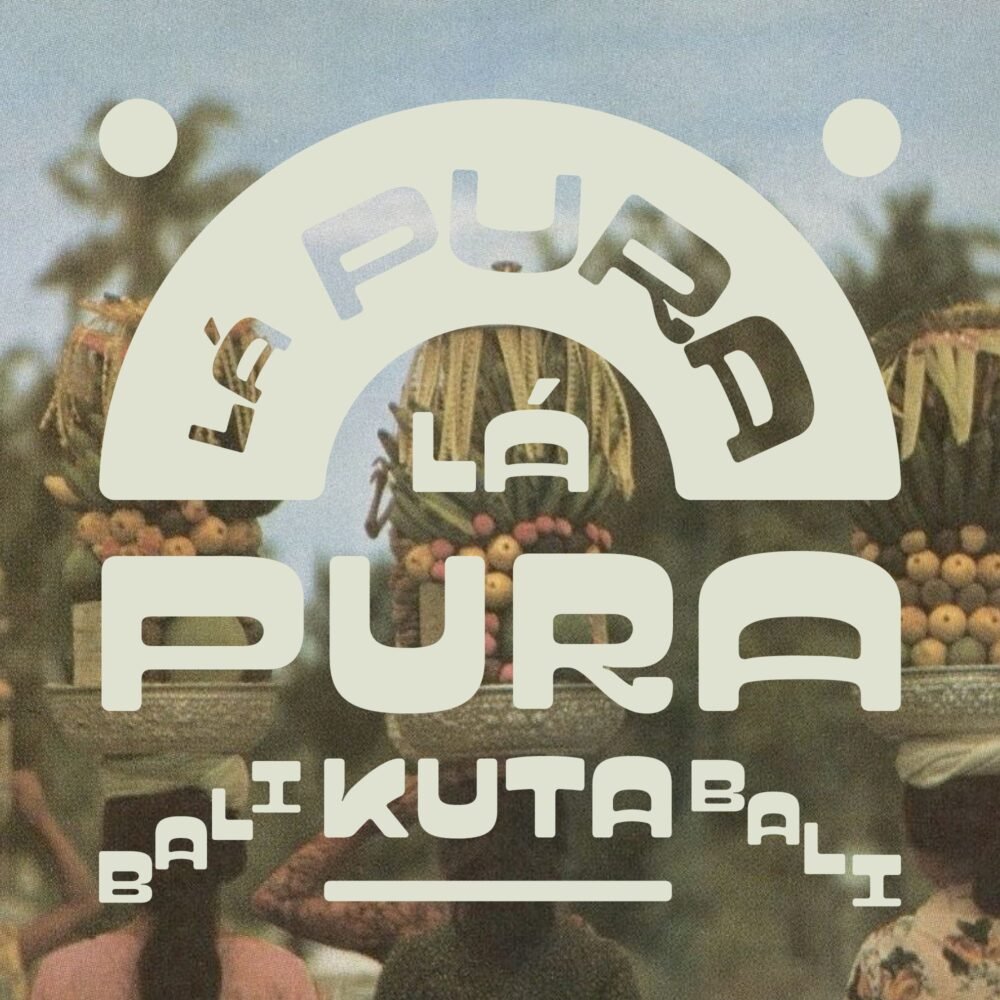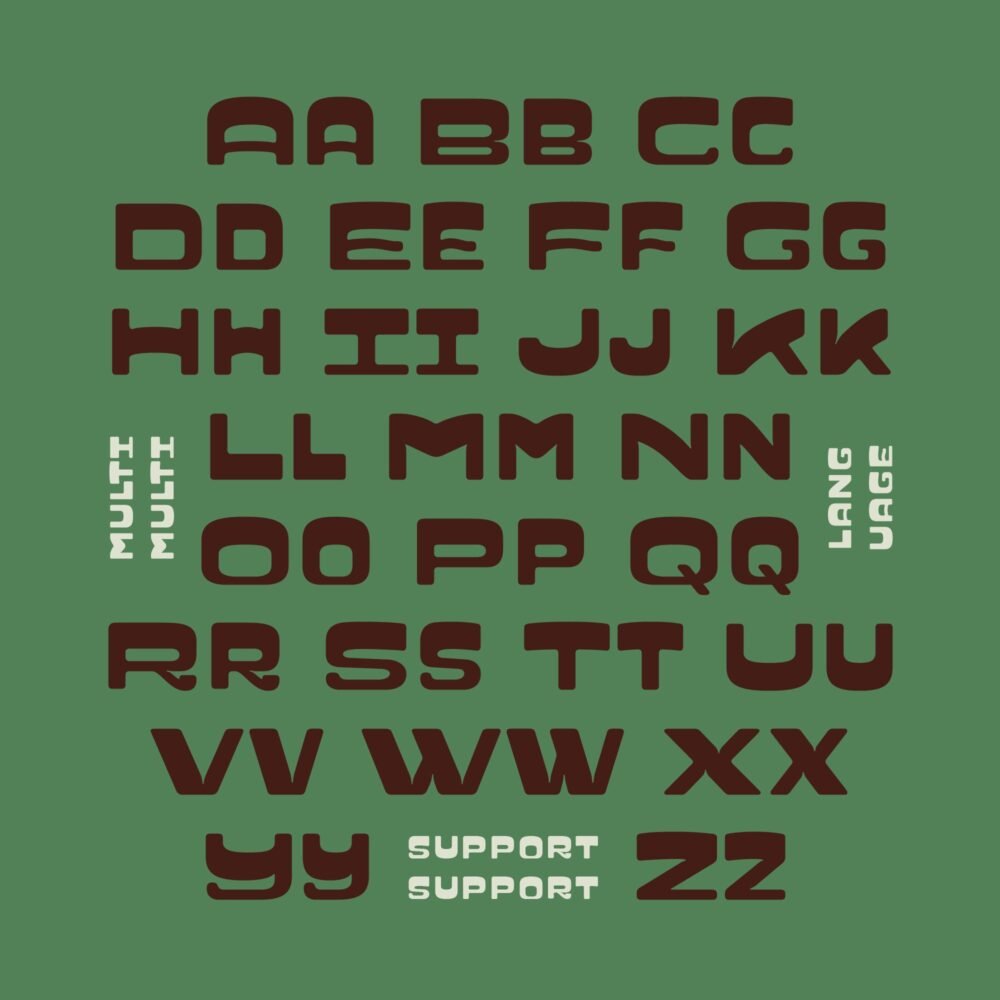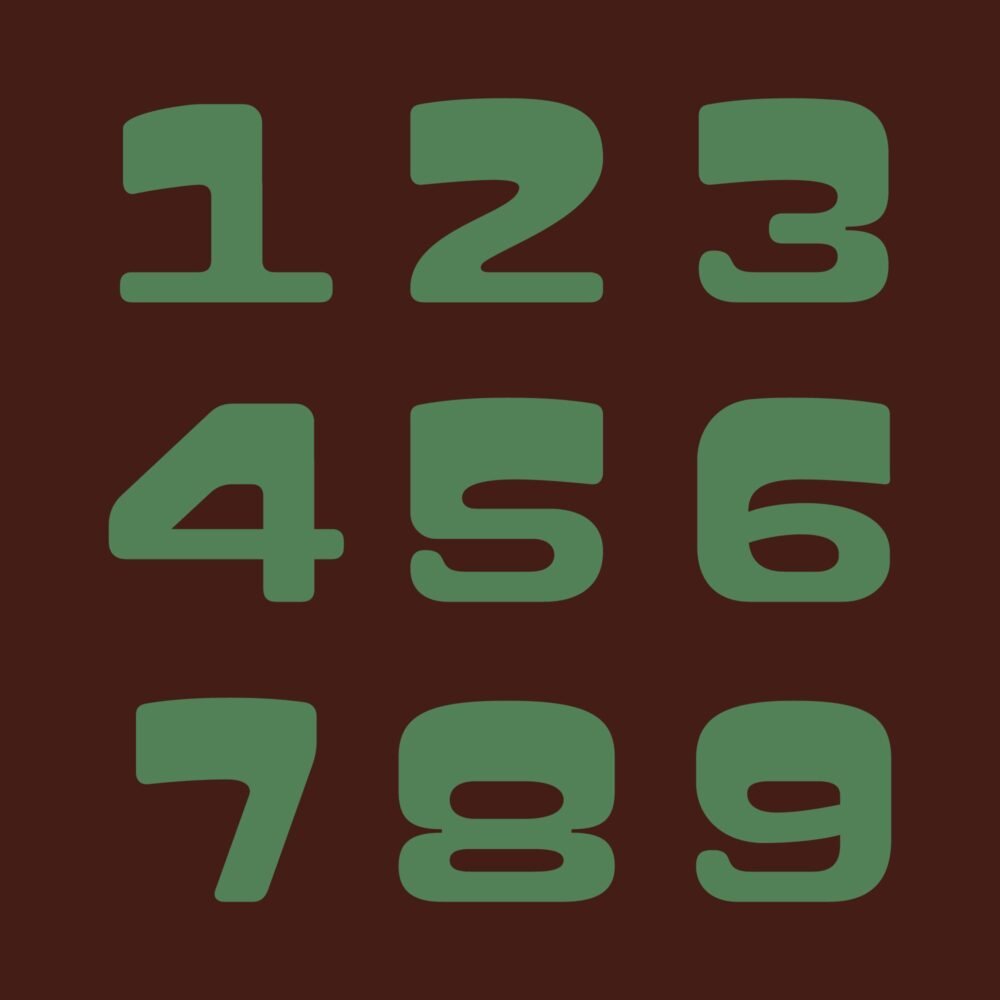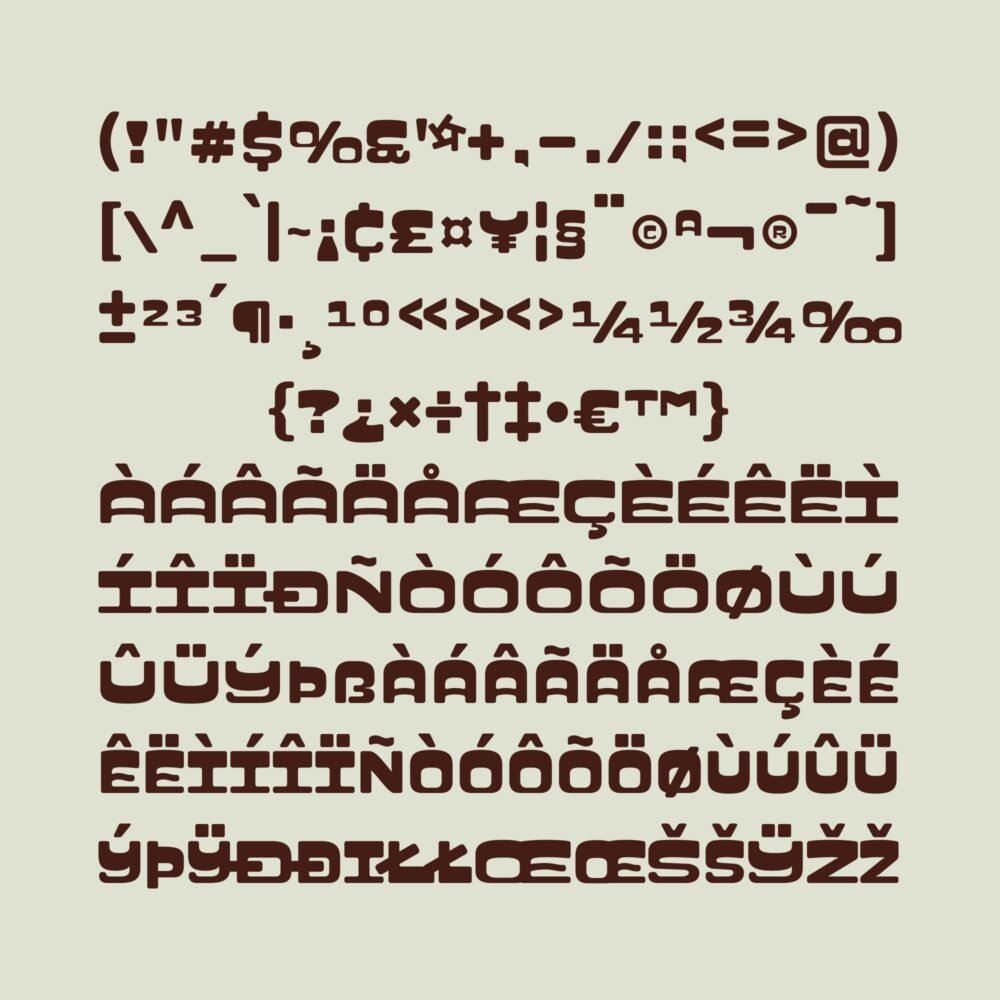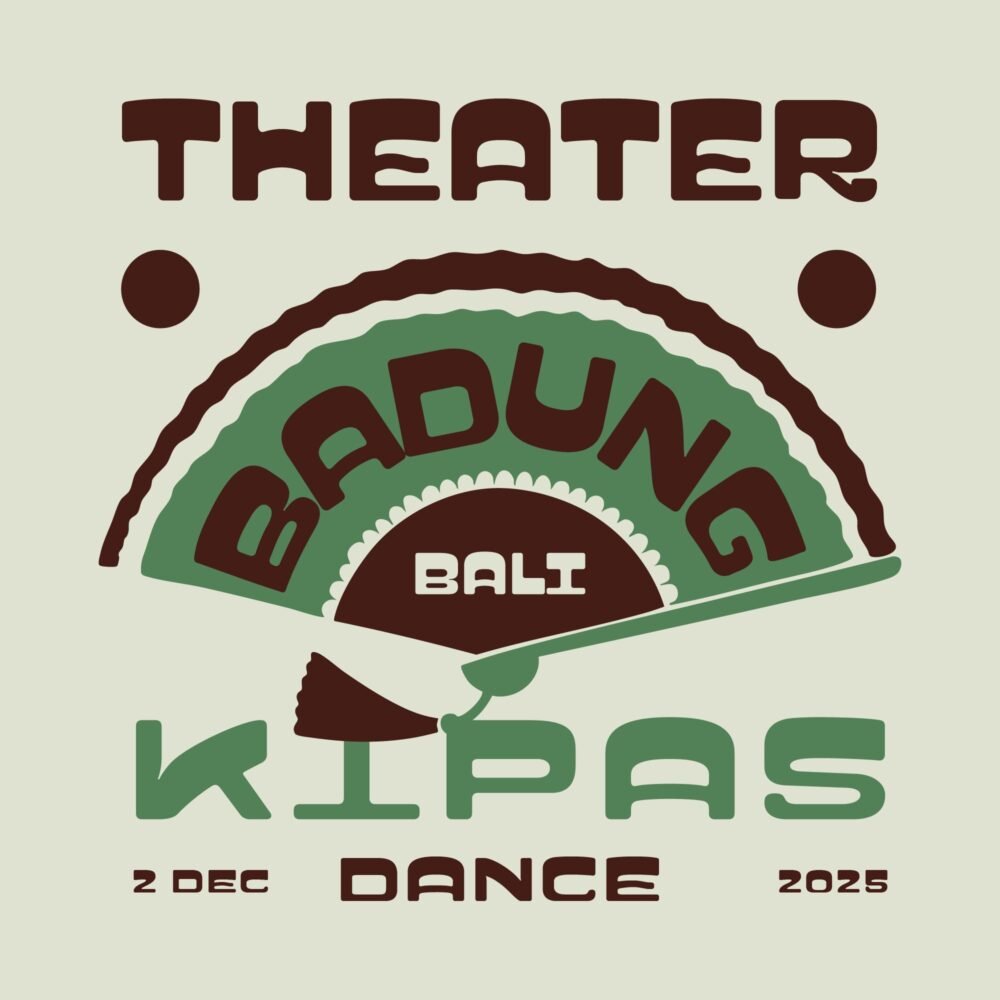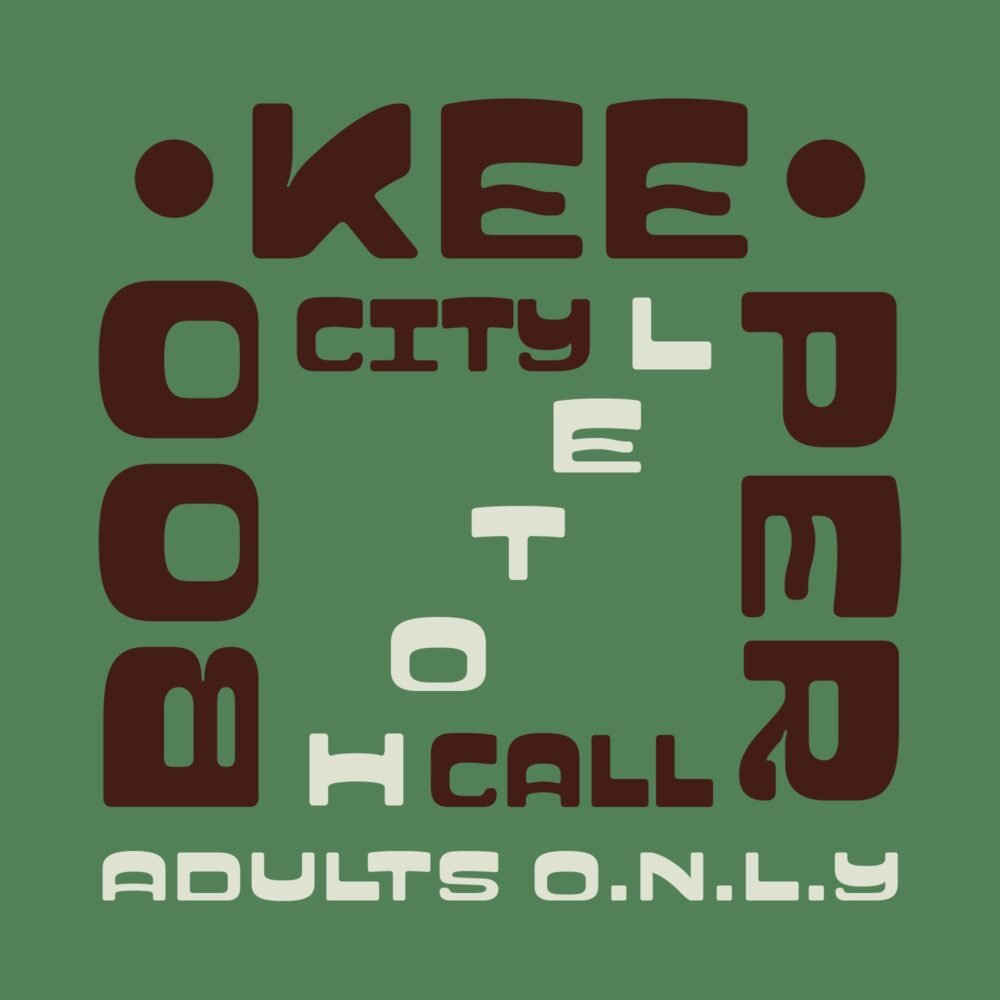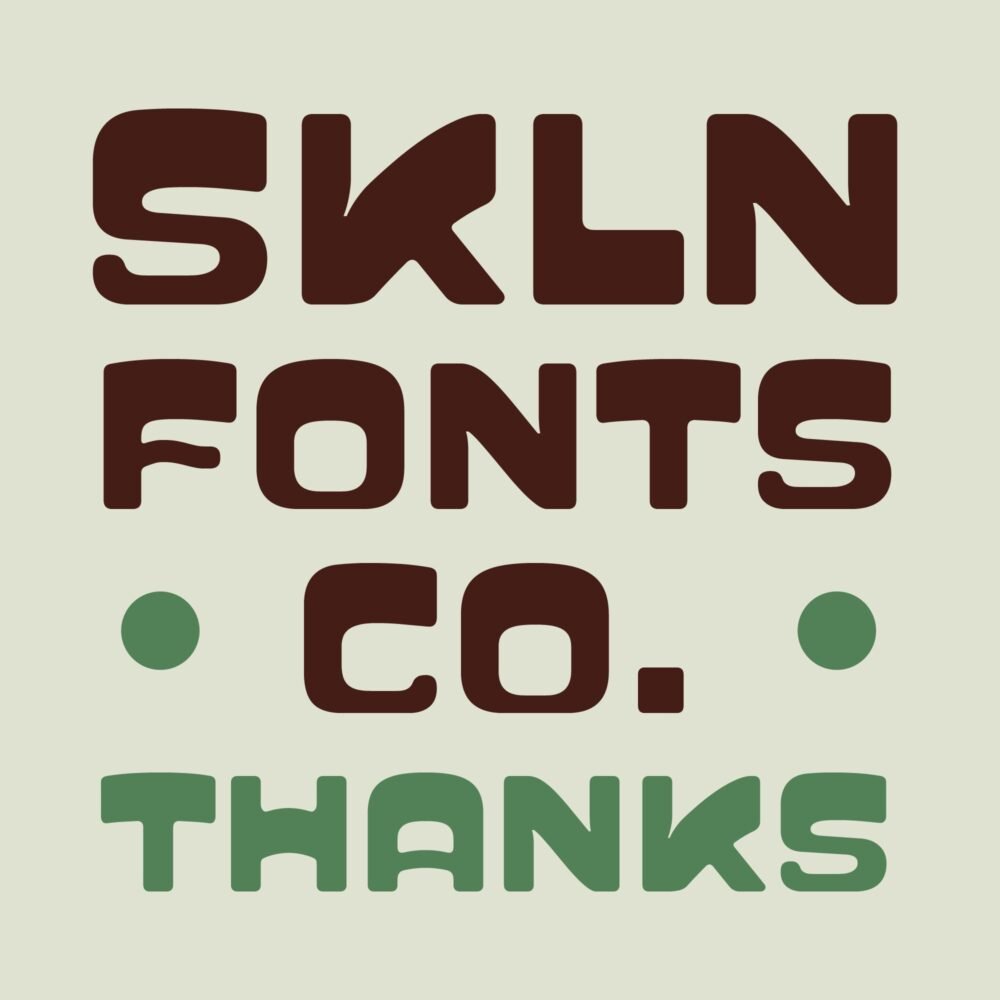
bold retro-tropical display font
SFC La Pura
La Pura is a bold retro-tropical display typeface inspired by Balinese signage, ceremonial architecture, and island-style lettering. Featuring chunky curves, playful proportions, and warm handcrafted character, it brings lively personality and cultural flair to modern creative projects.
Designed to blend heritage with contemporary expression, La Pura delivers an organic, energetic look that feels both bold and approachable.
• All Caps Typeface
• Display Letterforms
• Basic Numerals & Punctuation
• Multilingual Support